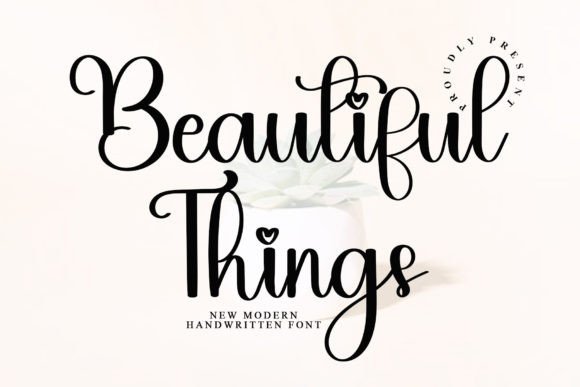
Introducing Beautiful Things Font: Elevate Your Creativity with Elegance
Are you a designer, crafter, or DIY enthusiast looking for a font that can add a touch of elegance to your creative projects? Look no further than Beautiful Things Font, a fun and handwritten font that is carefully crafted to bring a sense of sophistication to your work. In this article, we’ll explore the features and benefits of Beautiful Things Font, and how it can help you turn your creative ideas into true pieces of art.
The Story Behind Beautiful Things Font
Beautiful Things Font is a handcrafted font that is designed to be both fun and elegant. The font’s creator carefully crafted each letter to ensure that it is not only aesthetically pleasing but also highly legible. The result is a font that is perfect for a wide range of creative projects, from Instagram posts and DIY crafts to calligraphy scripts and more.
Key Features of Beautiful Things Font
So, what makes Beautiful Things Font so special? Here are just a few of its key features:
- Handwritten with care: Beautiful Things Font is carefully handcrafted to ensure that each letter is unique and full of character.
- Elegant and sophisticated: The font’s elegant design makes it perfect for projects that require a touch of sophistication.
- Highly legible: Despite its elegant design, Beautiful Things Font is highly legible, making it perfect for use in a wide range of creative projects.
- Perfect for Instagram: With its fun and elegant design, Beautiful Things Font is perfect for use in Instagram posts and stories.
- Ideal for DIY projects: The font’s handwritten design makes it perfect for use in DIY projects, such as crafting and scrapbooking.
Uses for Beautiful Things Font
So, what can you use Beautiful Things Font for? The possibilities are endless! Here are just a few ideas to get you started:
- Instagram posts and stories: Add a touch of elegance to your Instagram posts and stories with Beautiful Things Font.
- DIY crafts: Use Beautiful Things Font to add a personal touch to your DIY crafts, such as scrapbooking and card making.
- Calligraphy scripts: Beautiful Things Font is perfect for use in calligraphy scripts, adding a touch of elegance to your handwriting.
- Sign making: Use Beautiful Things Font to create beautiful signs for your home or business.
- Branding and marketing: The font’s elegant design makes it perfect for use in branding and marketing materials, such as logos and brochures.
Tips for Using Beautiful Things Font
Here are a few tips for getting the most out of Beautiful Things Font:
- Experiment with different colors: Beautiful Things Font looks great in a wide range of colors, so don’t be afraid to experiment and find the perfect color for your project.
- Mix and match with other fonts: Beautiful Things Font pairs well with a wide range of other fonts, so feel free to mix and match to create a unique look.
- Use it for headings and titles: The font’s elegant design makes it perfect for use in headings and titles, adding a touch of sophistication to your project.